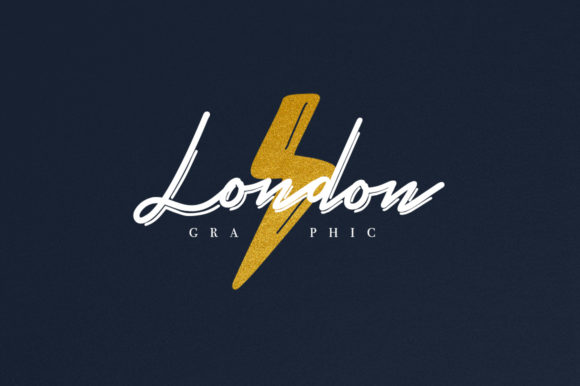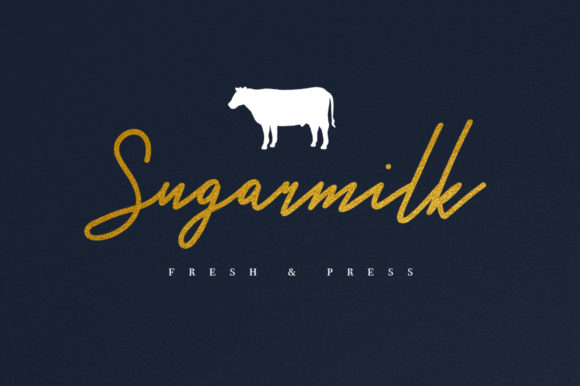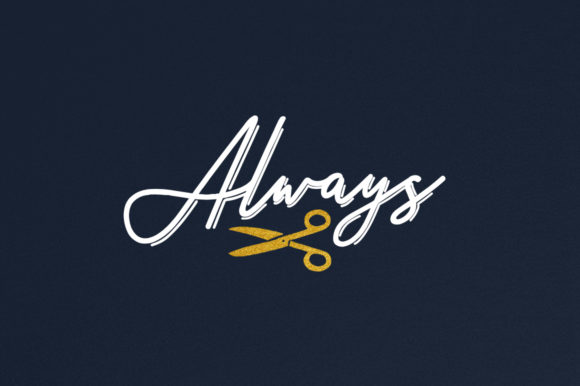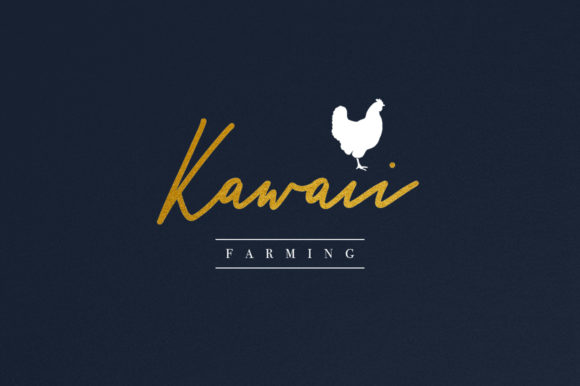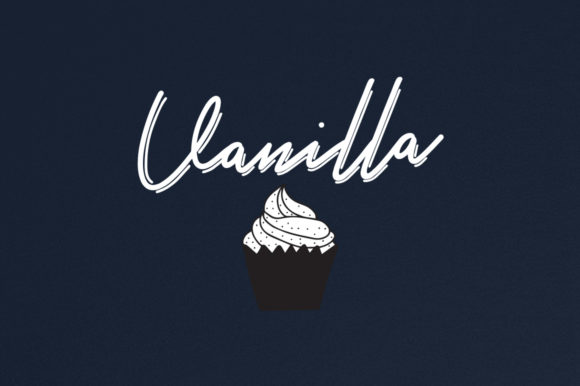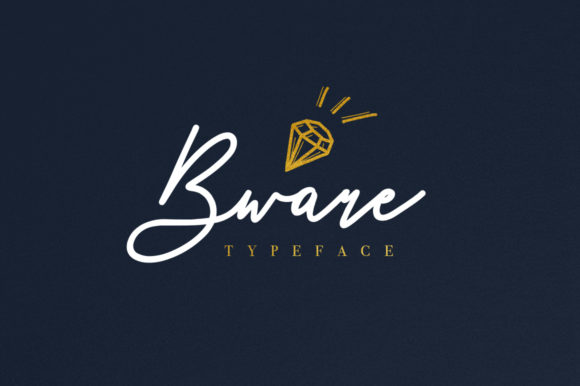
The Bware Font: A Sweet and Friendly Companion for Your Design Journey
I’ll never forget the time I was working on a project for a client’s wedding invitation. I had the design concept nailed down, but I was struggling to find the perfect font. The client wanted something sweet, friendly, and elegant, but not too formal. I scoured the internet, tried out dozens of fonts, and still couldn’t find the one. That’s when I stumbled upon Bware Font, and it was love at first sight! 💕
In this article, I’ll share with you why Bware Font has become a staple in my design toolkit, its unique features, and how to make the most of it in various design platforms.
An Honest Review of Bware Font
What I Love About Bware Font ✨
• 💖 Its natural and unique handwritten style makes it perfect for a wide range of designs, from wedding invitations to branding and packaging.
• ✅ The font is incredibly legible, even at small sizes, making it ideal for body text and captions.
• 🌈 Bware Font comes with a range of OpenType features, including stylistic alternates and glyphs, which allow for endless creative possibilities.
• 👍 The font is highly versatile and can be used for both digital and print projects.
While Bware Font is an excellent choice for many design projects, it’s not without its limitations. ⚠️ Some users may find that the font can be a bit too casual for very formal or corporate designs. Additionally, the font’s uniqueness may not be immediately apparent to readers who are used to more traditional typography.
The Story Behind Bware Font
Bware Font was designed by a talented type designer who wanted to create a font that would capture the essence of handwritten typography. The designer drew inspiration from various sources, including vintage letters, street art, and everyday handwriting. The result is a font that’s both unique and relatable, with a sweet and friendly personality.
Q: What is Bware Font?
A: Bware Font is a sweet and friendly handwritten font that’s perfect for a wide range of designs, from wedding invitations to branding and packaging.
Q: Is Bware Font suitable for body text?
A: Yes, Bware Font is highly legible and can be used for body text, even at small sizes.
Q: Does Bware Font come with OpenType features?
A: Yes, Bware Font comes with a range of OpenType features, including stylistic alternates and glyphs, which allow for endless creative possibilities.